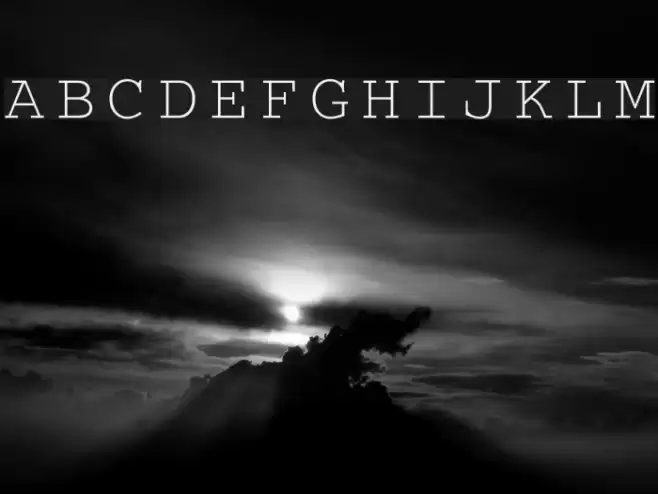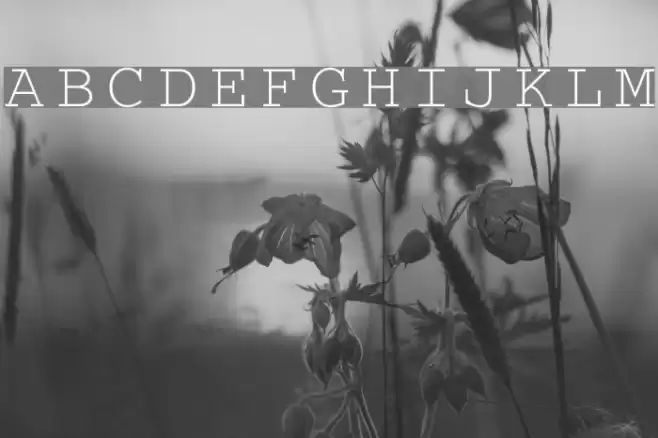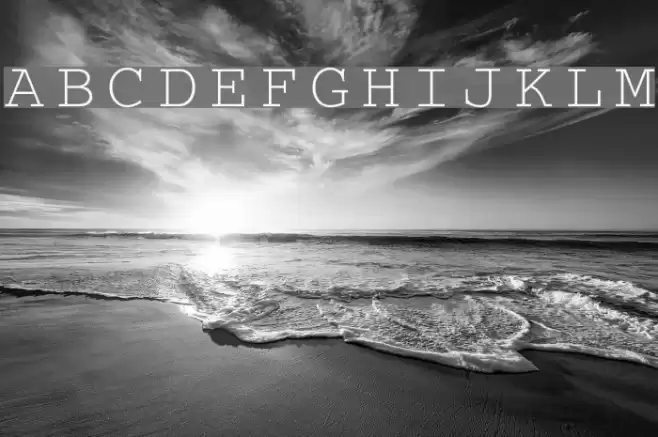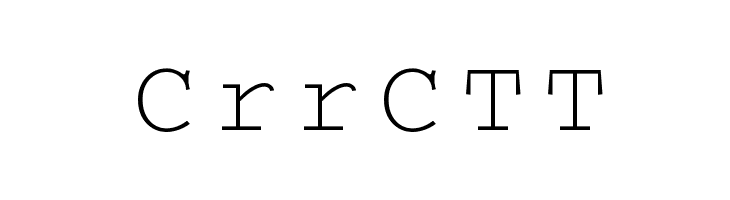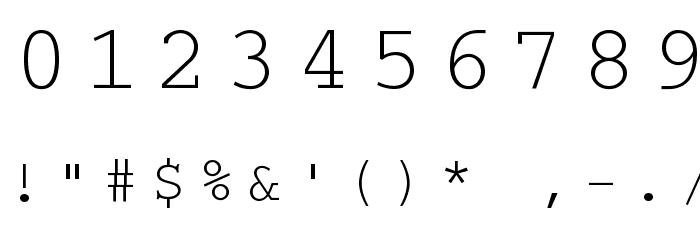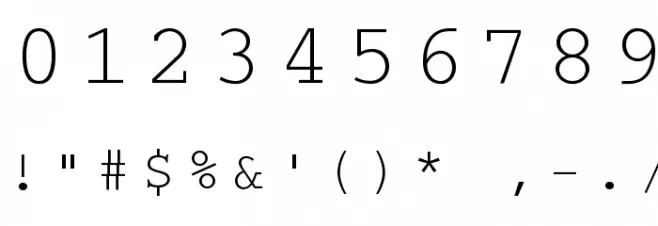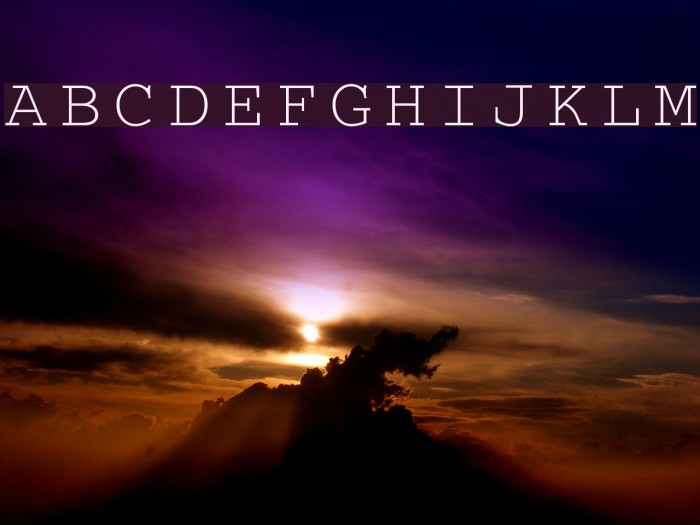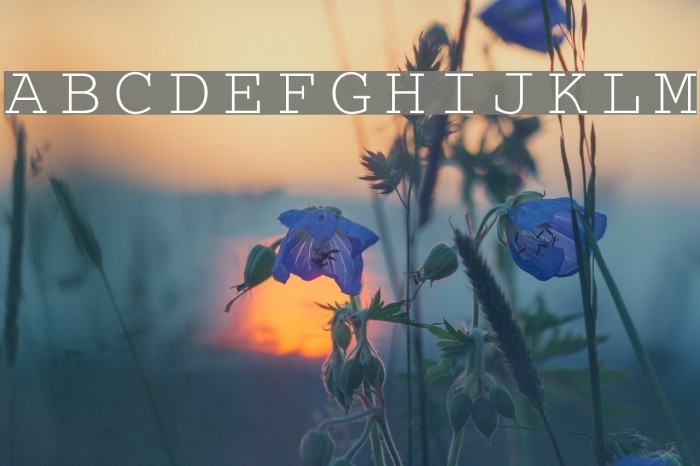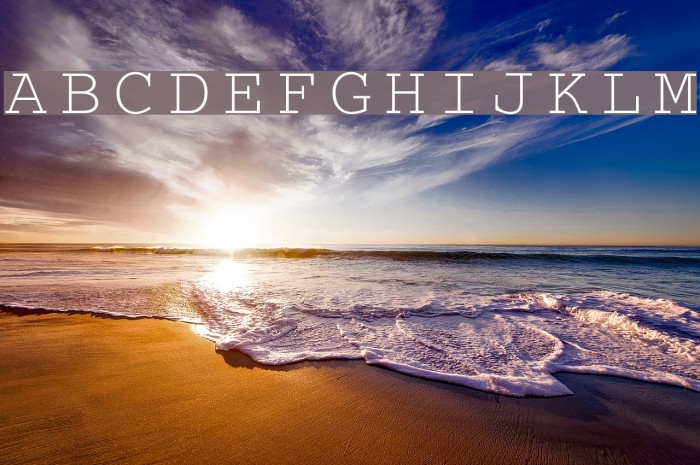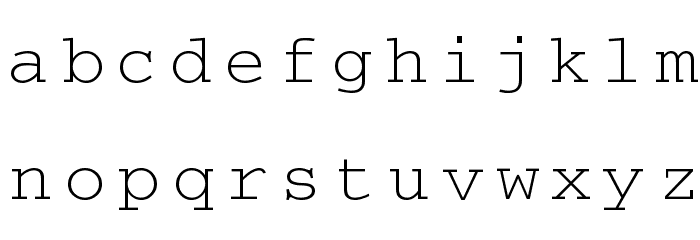
CrrCTT Font
CrrCTT Description
This typeface features a clean, modern design with a monospaced structure, where each character occupies the same amount of horizontal space. The letters are characterized by their simplicity and clarity, with minimalistic serifs that add a touch of elegance without compromising readability. The uniformity in width makes it ideal for coding and tabular data, ensuring alignment and consistency. The numbers and special characters maintain the same design ethos, providing a cohesive look across all glyphs. The font's balance between form and function makes it versatile for various applications.
A modern, monospaced typeface with minimalistic serifs and uniform character width from Uncategorized fonts.
- Proposed Projects: Ideal for coding environments, technical documentation, and data tables. Can also be used in design projects that require a clean, structured look.
- Use Case: Coding, Technical documentation, Data tables